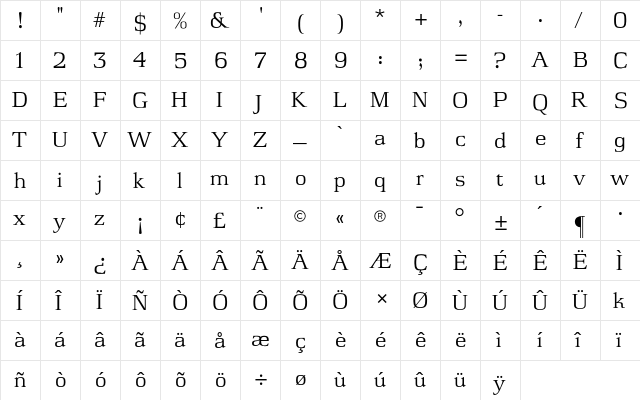
Jasper CG Regular
| Foundry | Agfa Corporation |
Design Context for Jasper CG Typeface
Jasper CG is a composed and adaptable typeface that performs quietly and consistently across a wide range of design contexts.